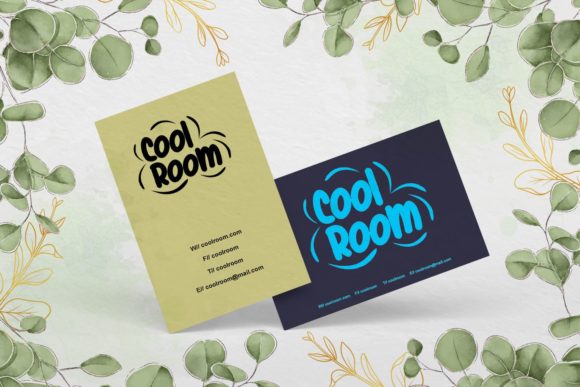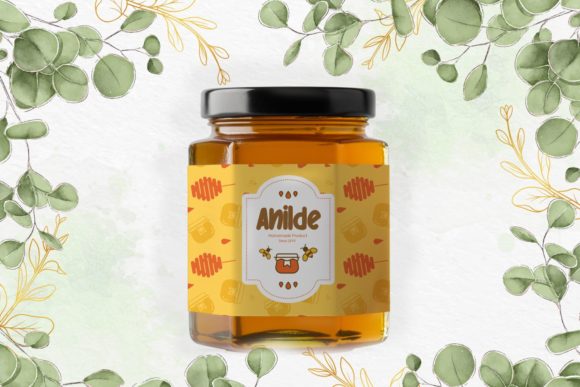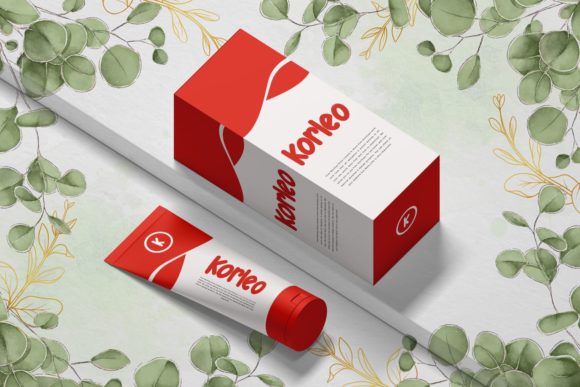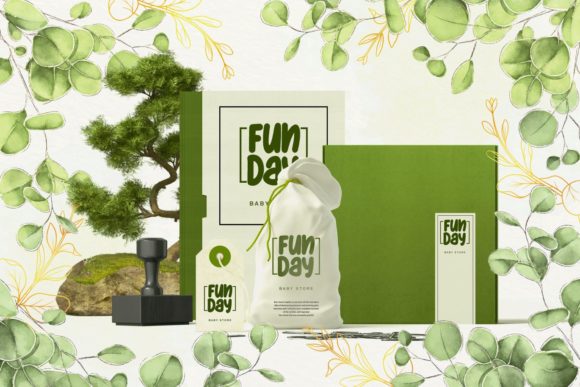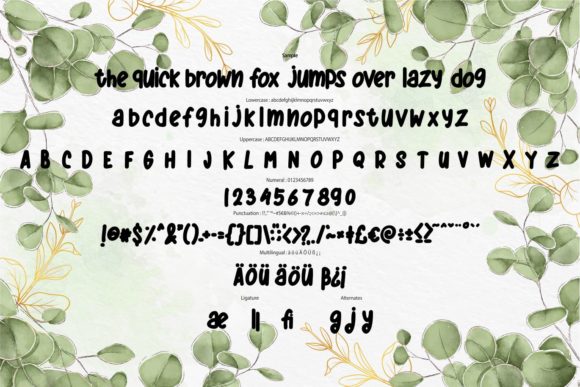
The Designer’s Delight: Getting to Know Gisela Font
I still remember the frustration of working on a branding project, only to hit a roadblock when searching for the perfect font. My client wanted something casual yet elegant, and I was determined to deliver. That’s when I stumbled upon Gisela Font, a brushed and casual display font that instantly caught my attention. In this article, I’ll share my experience with Gisela, its features, and how to make the most of it in your designs.
An Honest Review of Gisela Font
- ✨ Unique, hand-crafted feel that adds a personal touch to any design
- ✅ Highly versatile, suitable for branding, packaging, invitations, quotes, and more
- 💡 Excellent for creating logos, labels, and posters that require a distinctive look
- 🎨 Beautifully designed to work well in both digital and print formats
While Gisela Font is an excellent choice, there are a few things to keep in mind:
- ⚠️ May not be the best fit for body text due to its display nature
- 🤔 Limited availability of certain characters or glyphs, which might require additional design workarounds
A Practical Guide to Using Gisela Font
The Story Behind Gisela Font
Gisela Font was designed with the intention of creating a unique, yet versatile typeface that could cater to a wide range of design needs. Inspired by the imperfections of hand-painted signs and the elegance of calligraphy, Gisela brings a touch of personality to any design project. Whether you’re a designer, crafter, or hobbyist, Gisela aims to provide a reliable and beautiful font for your creative endeavors.
Q: Is Gisela Font suitable for body text?
A: While Gisela is primarily designed as a display font, it can be used for short paragraphs or captions. However, for extended body text, a more traditional font might be more suitable.
Q: Does Gisela support OpenType features?
A: Yes, Gisela Font supports OpenType features, including stylistic alternates, glyphs, and more. This allows for a high degree of customization and creativity in your designs.